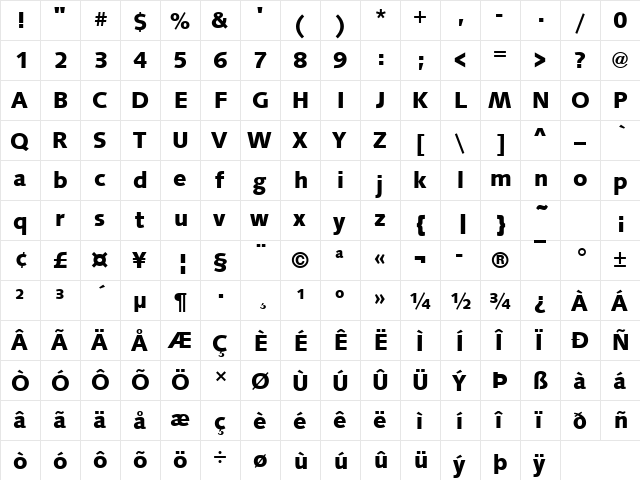
URWSamarkandT Bold
Design Context for URWSamarkandT Typeface
URWSamarkandT is a composed and adaptable typeface that performs quietly and consistently across a wide range of design contexts. Its bold stroke weight gives it real presence on the page.